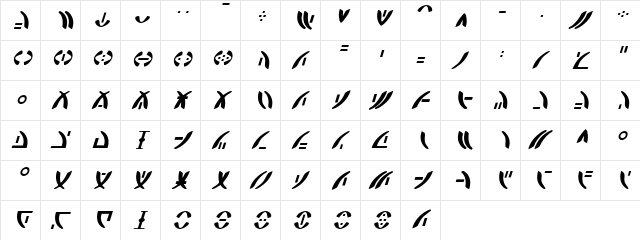
Zeta Reticuli Italic Italic
Design Context for Zeta Reticuli Italic Typeface
Zeta Reticuli Italic is a composed and adaptable typeface that performs quietly and consistently across a wide range of design contexts. The slanted form adds forward momentum and visual energy.
Pro Tip: Try Zeta Reticuli Italic for annotation and caption copy alongside an upright companion — the contrast in angle creates a dynamic but ordered typographic system.